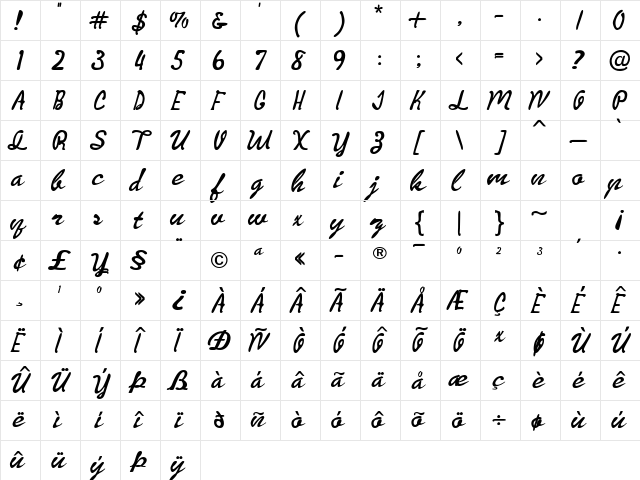
Los Porttal Regular
Regular ·  Muhammad Panji Ramdhani ·
DesignerMuhammad Panji Ramdhani
Design Context for Los Porttal Typeface
Los Porttal is a composed and adaptable typeface that performs quietly and consistently across a wide range of design contexts.